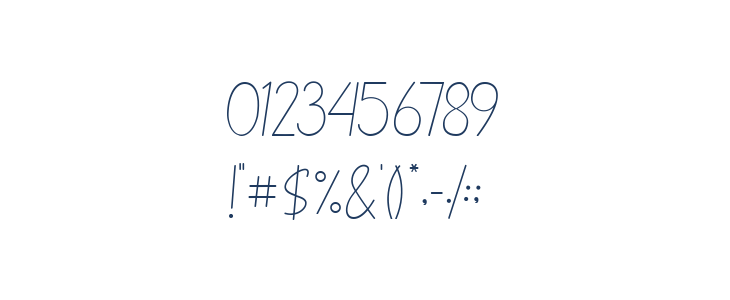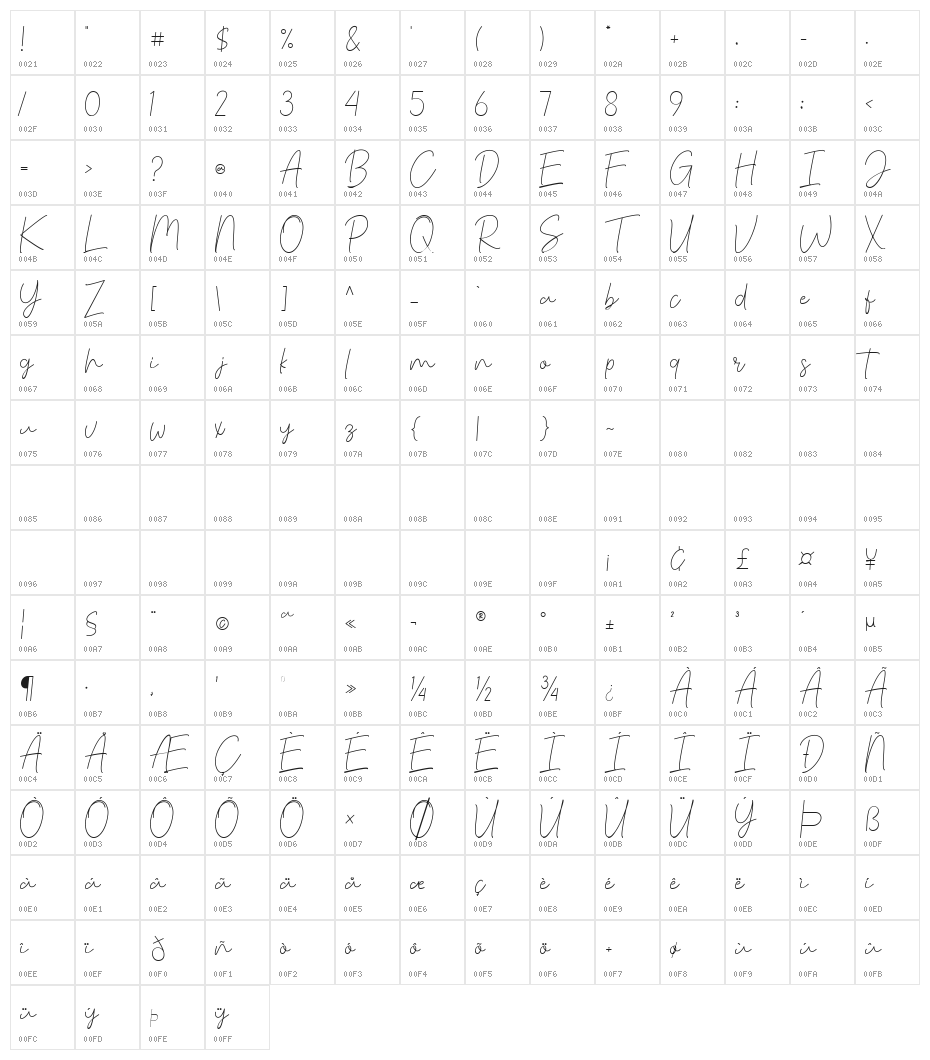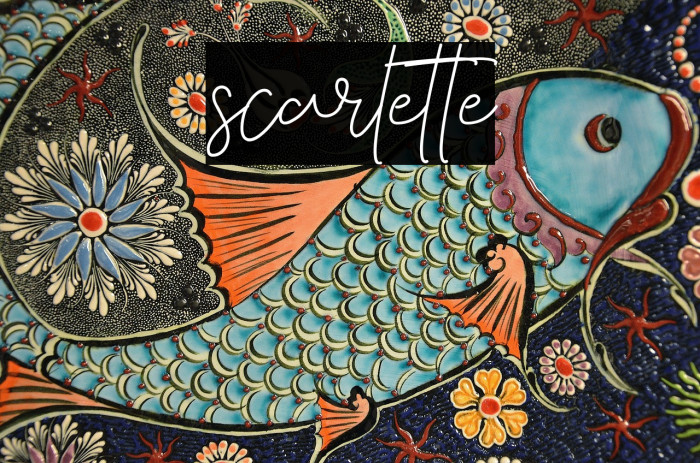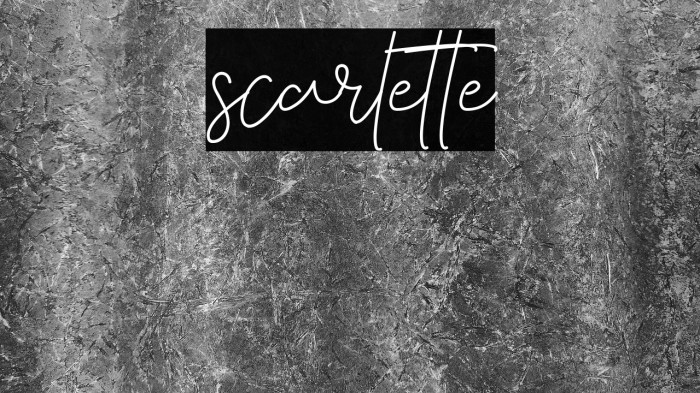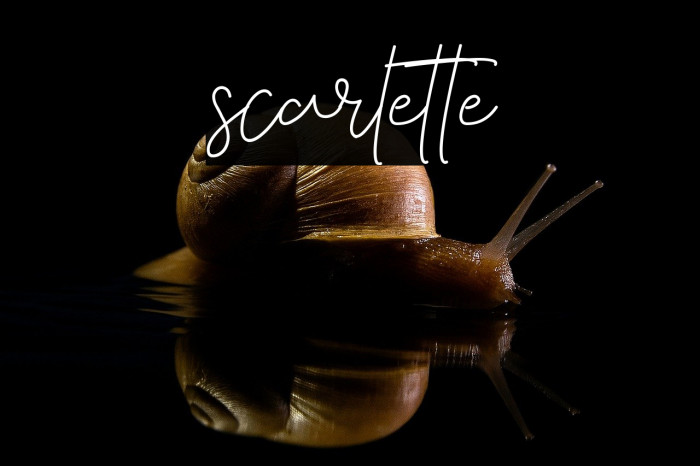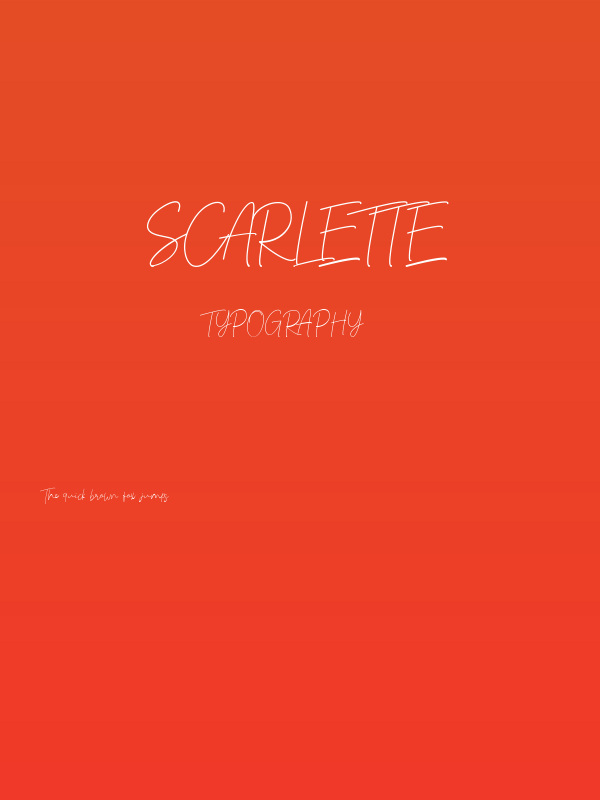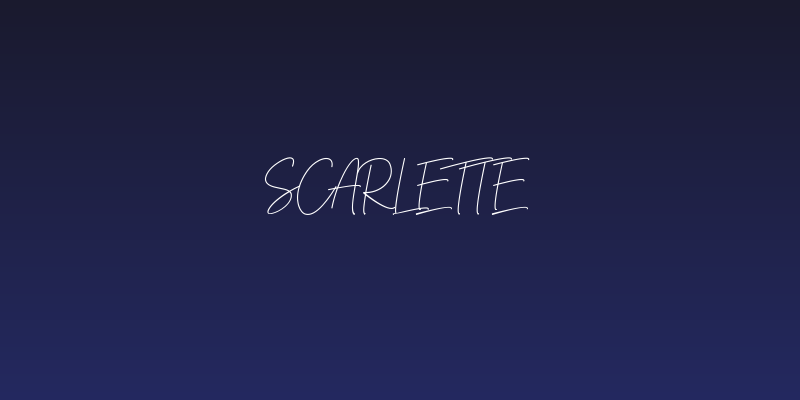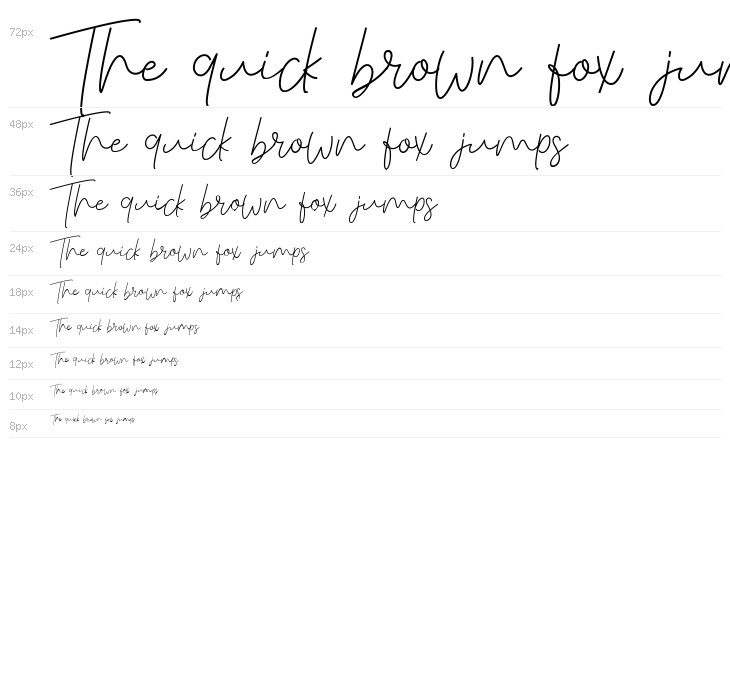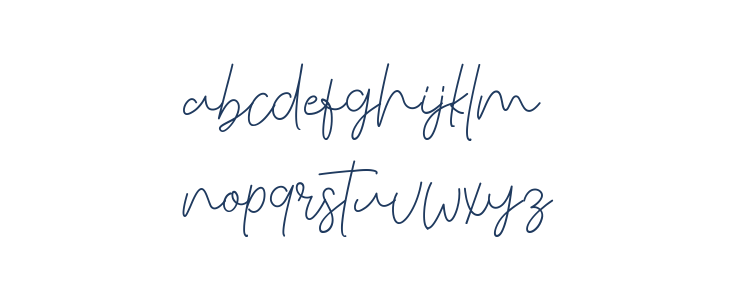
scarlette Font
scarlette Description
This font features a delicate and flowing handwritten style, characterized by its elegant and smooth curves. The letters are connected in a fluid manner, giving it a natural and organic feel. The uppercase letters are tall and slender, while the lowercase letters maintain a consistent flow with slightly more rounded forms. The numerals are clear and legible, matching the overall aesthetic of the script. Special characters are seamlessly integrated, maintaining the font's cohesive look. This font exudes a sense of sophistication and grace, making it suitable for projects that require a personal touch.
| Proposed Projects | Ideal for wedding invitations, greeting cards, personal branding, and elegant packaging designs. |